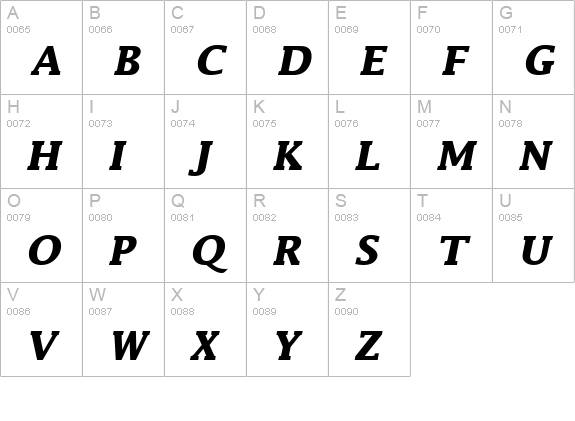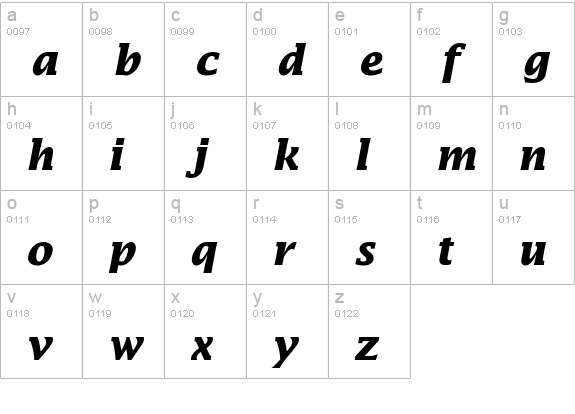
Insight SSi Bold Italic is a strong, high-contrast, italic variant in the Insight typeface family \xE2\x80\x94 well suited to headlines, attention-grabbing titles, and strong calls-to-action.
Insight SSi Bold Italic font is a stunning and captivating typeface that effortlessly combines boldness and elegance. With its unique blend of strong and slanted letterforms, this font exudes a sense of confidence and sophistication. The strong, thick strokes of the bold design make each character stand out, commanding attention and leaving a lasting impression. The italicized slant adds a touch of dynamism, creating a sense of movement and energy within the text. Whether used for headlines, titles, or branding materials, Insight SSi Bold Italic font is sure to make a bold statement. It perfectly captures the essence of modern design, making it an ideal choice for any contemporary project. One of the best things about Insight SSi Bold Italic font is that it is freely available to download at FontsMarket.com. This means that you can easily access this exceptional font and incorporate it into your designs without any hassle or additional cost. The versatility of Insight SSi Bold Italic font knows no bounds. Its bold and italicized styles work harmoniously together, allowing you to create unique and eye-catching designs. From logos and advertisements to packaging and web design, this font will elevate your projects to a whole new level. The legibility of Insight SSi Bold Italic font is exceptional, ensuring that your message is clear and easy to read. Its well-defined letterforms maintain their clarity even at smaller sizes, making it suitable for both print and digital mediums. Embrace the power and elegance of Insight SSi Bold Italic font in your next design project. Its visually striking appearance combined with its effortless accessibility makes it a must-have for any designer seeking to make a lasting impression. Download it for free at FontsMarket.com and unleash your creativity today!